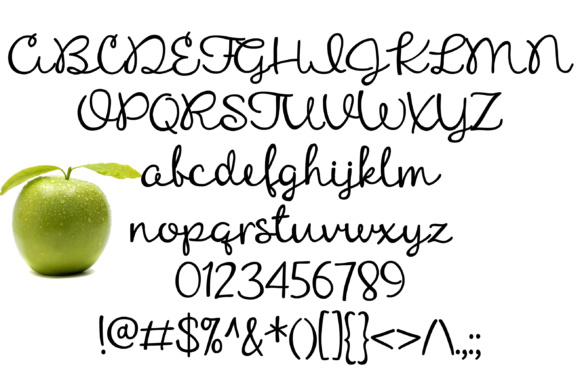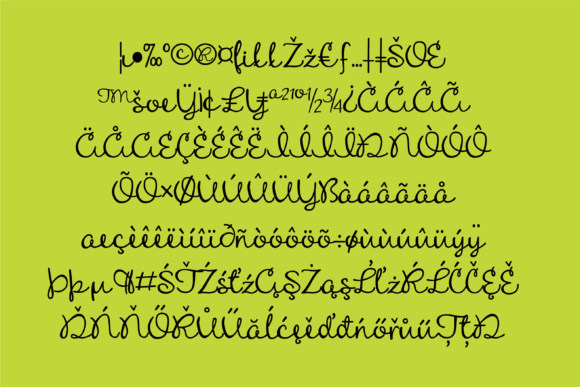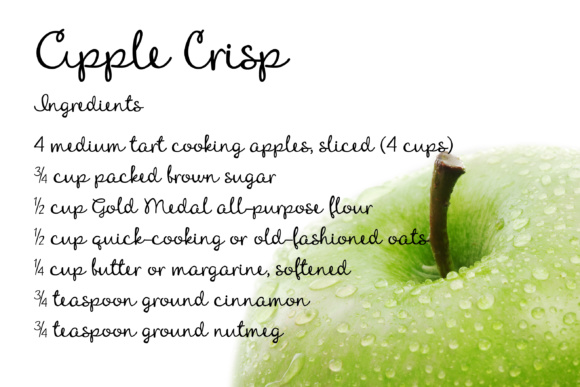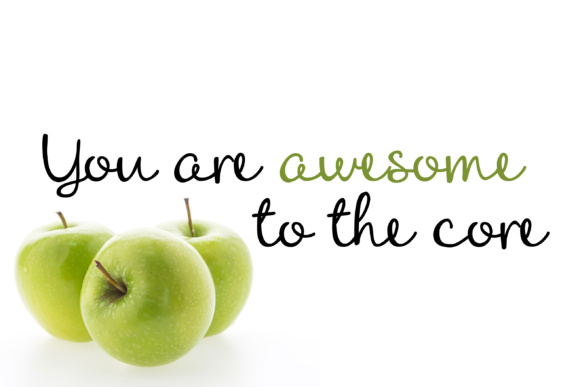
HomeScript FontsApple Crisp Font Script Fonts Apple Crisp Font FacebookXPinterestWhatsApp Apple Crisp Font Poster 2 Apple Crisp Font Poster 3 Apple Crisp Font Poster 4 Apple Crisp Font Poster 5 About Apple Crisp Font This hand-crafted script has a very traditional cursive lowercase but slightly modernized uppercase. DOWNLOAD NOW People also explored Mogate Font Amelia Font Hallo Halloween Font Dear Someone Font Canera Font Hello Gifts Font Merry Jolly Font Strongheld Font Yellow Mango Font 286 0 TagsApple Crisp Font Previous articleWhisk It FontNext articleMegajoule Font LEAVE A REPLY Cancel reply Comment: Please enter your comment! Name:* Please enter your name here Email:* You have entered an incorrect email address! Please enter your email address here Website: Save my name, email, and website in this browser for the next time I comment. Personal Use Free Peristiwa Font Personal Use Free Read more about this font Potato Pancakes Personal Use Free Read more about this font Rothwell Personal Use Free Read more about this font City Tour Personal Use Free Read more about this font BLOG Elegant Wedding Invitation Fonts – Handwritten & Script Fonts Elegant Wedding Invitation Fonts Your wedding day is one of the most important moments of your life, and every detail matters—including your invitation design. Our... Best Fonts for T-Shirt Design – Top 2025 Picks Free vs Paid Fonts: Why Investing in Premium Fonts Is Worth It Top 7 Google Fonts Alternatives for Faster and Privacy-Friendly Web Design (2025)